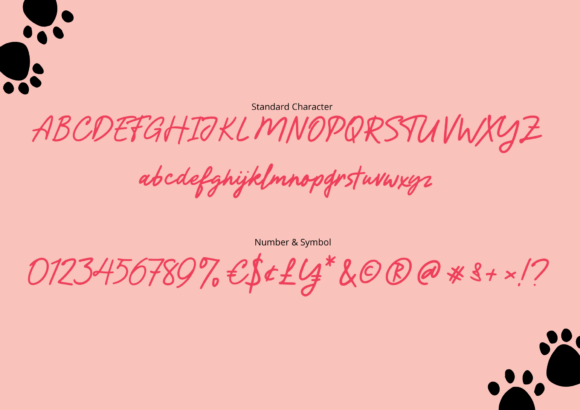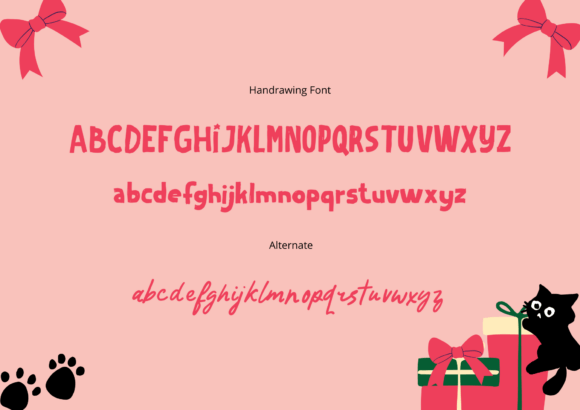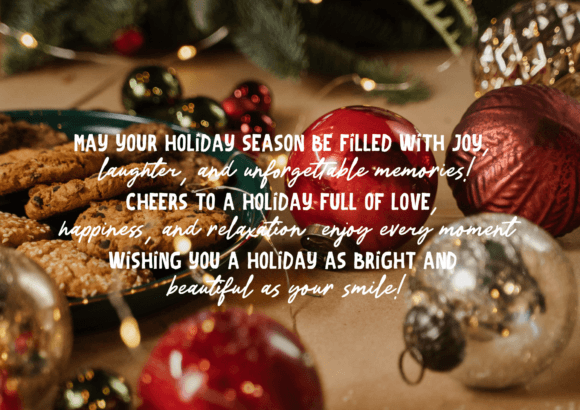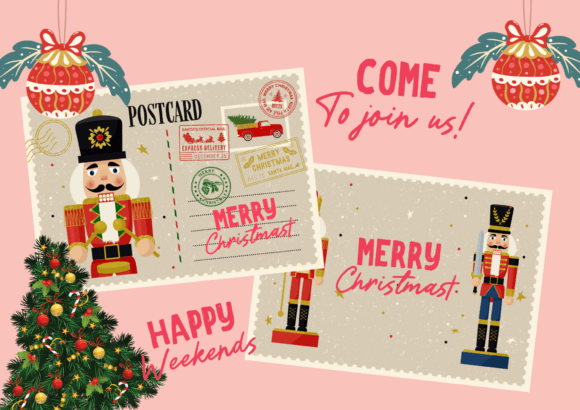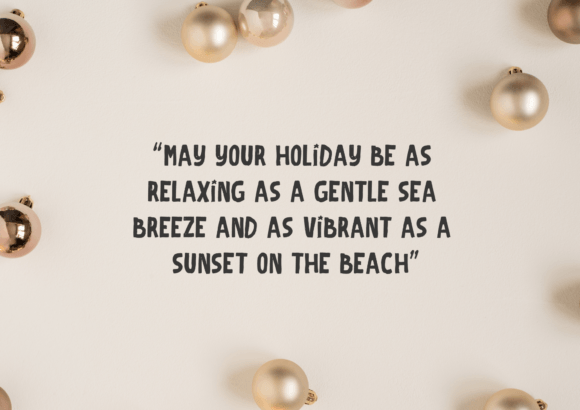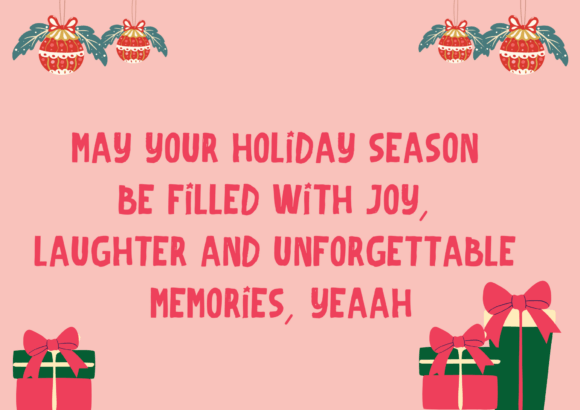
Introducing Afterain Holiday: The Ultimate Display Font Bundle
In the world of modern typography, finding the perfect font that combines style, practicality, and a touch of uniqueness can be a daunting task. However, for designers and crafters looking to elevate their graphical projects, the wait is over. Meet Afterain Holiday, a dynamic fusion of ‘Difficoves Love’ and ‘Handraw’ display fonts. This versatile bundle is set to revolutionize the way we approach typography, offering a breath of fresh air with its distinctive blend of heartwarming charm and organic earthiness.
The Genesis of Afterain Holiday
Afterain Holiday is not just another font bundle; it’s a meticulously crafted combination of two unique fonts: Difficoves Love and Handraw. Difficoves Love brings to the table a heartwarming charm that instantly connects with the viewer, evoking feelings of warmth and intimacy. On the other hand, Handraw contributes an organic earthiness, providing a natural and effortless vibe that is hard to resist. By merging these two distinct styles, Afterain Holiday creates a one-of-a-kind typographic experience that is both captivating and versatile.
A Unique Blend of Style and Practicality
What sets Afterain Holiday apart from other font bundles is its unique blend of style and practicality. Designers and crafters often find themselves torn between choosing a font that looks great but lacks versatility, or one that is functional but fails to make an impact. With Afterain Holiday, this dilemma becomes a thing of the past. This font bundle embodies a distinctive style that is not only visually appealing but also highly practical for a wide range of graphical projects.
Perfect for Capturing Hearts and Brightening Up Projects
Whether you’re working on a branding project, crafting a compelling advertisement, or designing an eye-catching poster, Afterain Holiday is the perfect companion. Its unique blend of charm and earthiness ensures that your project stands out from the crowd, capturing the hearts of your audience and leaving a lasting impression. The versatility of Afterain Holiday means it can be used across various platforms, from digital media to print, ensuring consistency and professionalism in your design work.
Key Features of Afterain Holiday
- Dynamic Fusion: A unique combination of Difficoves Love and Handraw display fonts, offering a fresh perspective in typography.
- Versatile: Suitable for a wide range of graphical projects, from branding and advertising to posters and digital media.
- Heartwarming Charm: Difficoves Love brings a warm and intimate feel to your designs.
- Organic Earthiness: Handraw adds a natural and effortless vibe, making your projects stand out.
- Highly Legible: Designed not only to be beautiful but also to ensure readability across different platforms.
How to Make the Most of Afterain Holiday
To truly leverage the potential of Afterain Holiday, consider experimenting with different sizes, colors, and design combinations. The dynamic nature of this font bundle allows for endless creativity, so don’t be afraid to push the boundaries. Pair Afterain Holiday with complementary fonts for added contrast, or use it as a standalone statement piece. The key is to let the unique characteristics of this font shine through, making your project memorable and impactful.
Afterain Holiday is more than just a font bundle; it’s a gateway to creating visually stunning and emotionally engaging graphical projects. By combining the best of Difficoves Love and Handraw, this dynamic fusion offers designers and crafters a tool that is as practical as it is stylish. Whether you’re looking to capture hearts, brighten up your designs, or simply explore new typographic possibilities, Afterain Holiday is your perfect companion. Dive into the world of modern typography with Afterain Holiday and discover a new dimension of creative expression.